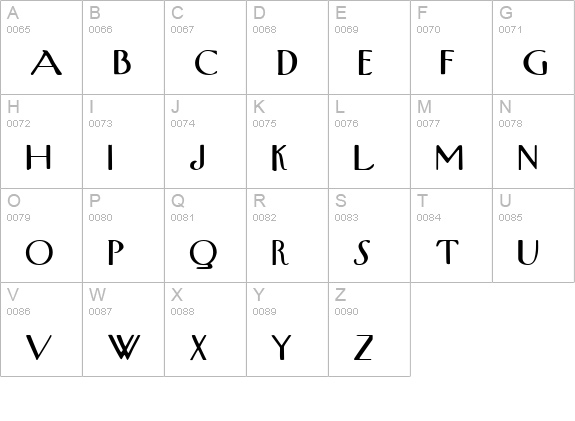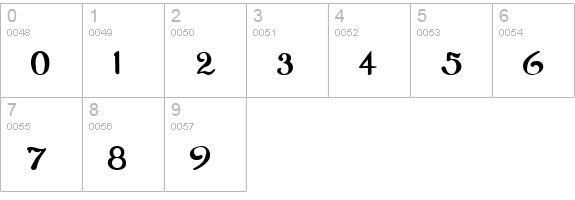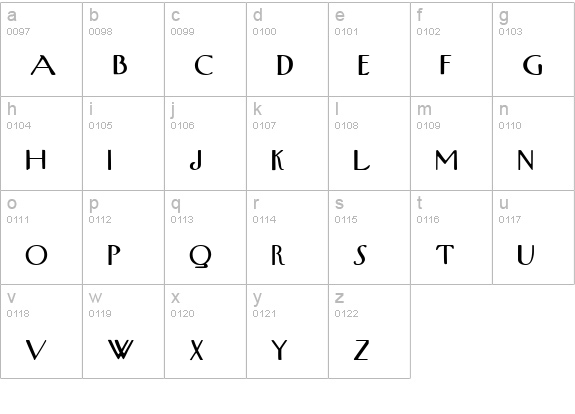
UpperWestSide Regular Font Details
UpperWestSide Regular is the standard, neutral variant in the UpperWestSide typeface family \xE2\x80\x94 well suited to general body text, paragraphs, and standard typographic work.
Introducing UpperWestSide Regular, a versatile and charismatic font that exudes elegance and sophistication. With its clean lines and timeless appeal, UpperWestSide Regular is the perfect choice for any design project that requires a touch of refined class. This font boasts a harmonious balance between traditional and modern design elements, making it suitable for a wide range of applications. Whether you're designing a logo, creating a wedding invitation, or crafting a magazine layout, UpperWestSide Regular will effortlessly elevate your work to new heights. One of the standout features of UpperWestSide Regular is its versatility. It can be used for both headlines and body text, ensuring consistency and cohesiveness throughout your project. The well-crafted letterforms and thoughtful spacing make for excellent readability, even at small sizes. But what sets UpperWestSide Regular apart from other fonts is its accessibility. It is freely available to download at FontsMarket.com, making it a valuable addition to any designer's toolkit. Say goodbye to expensive font licenses and restrictions – with UpperWestSide Regular, you have the freedom to use it in both personal and commercial projects without any limitations. So, why wait? Experience the elegance and versatility of UpperWestSide Regular today. Download it for free at FontsMarket.com and unlock a world of creative possibilities. Whether you're a seasoned professional or a budding designer, this font is sure to become your go-to choice for all your typographic needs. Elevate your designs and make a lasting impression with UpperWestSide Regular.